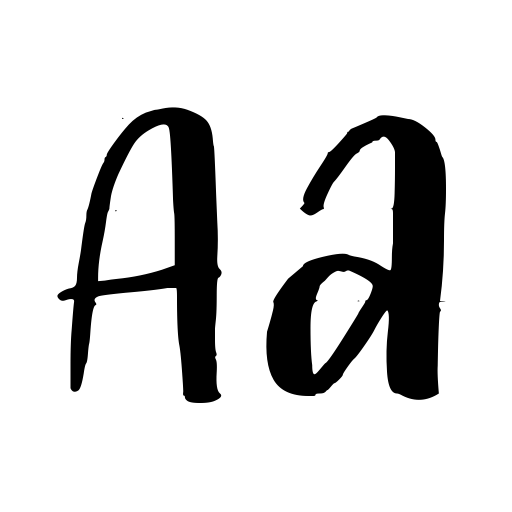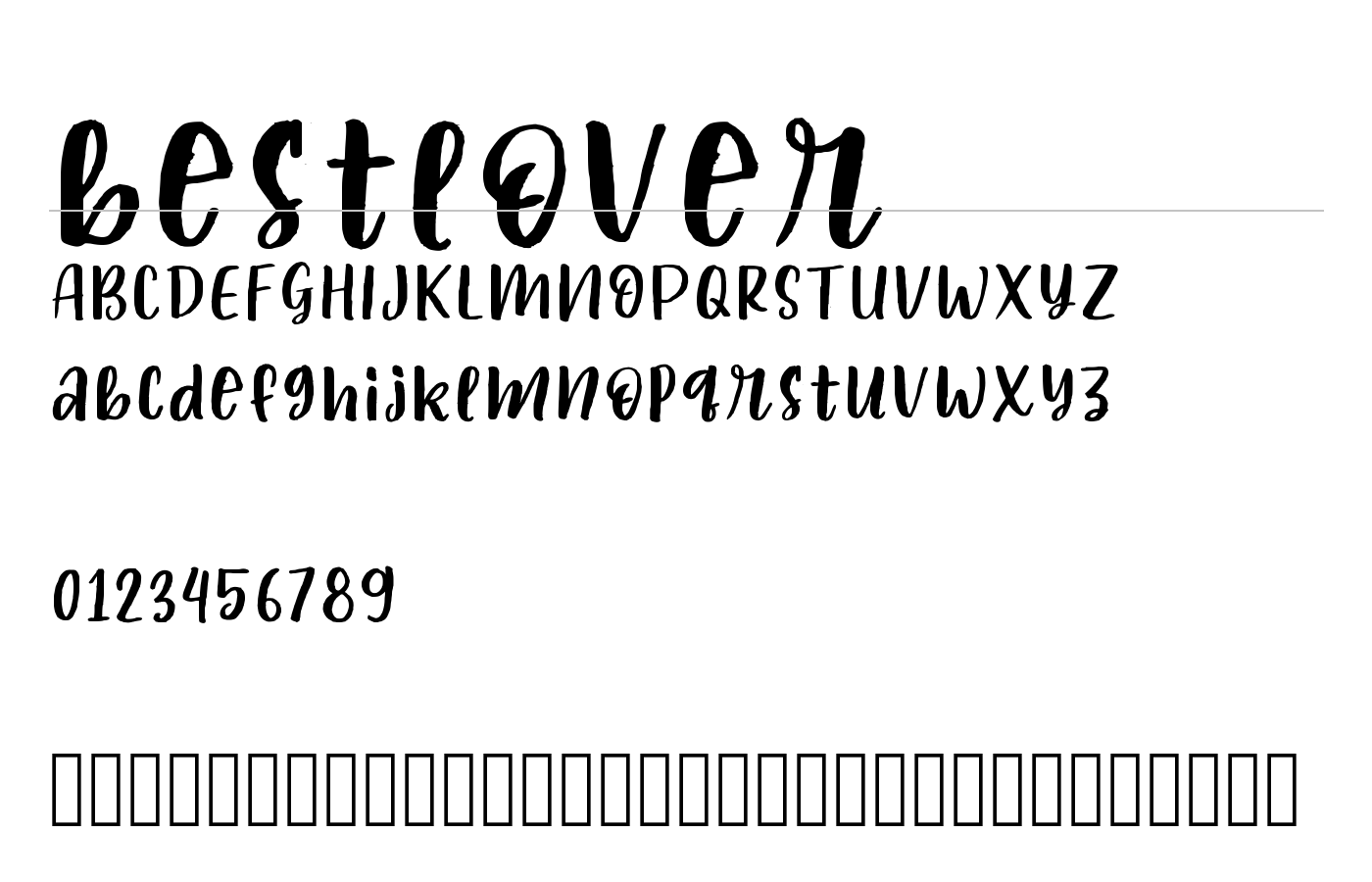
Bestlover Font is a playful and hand-drawn script-style typeface with a charming, casual feel. It features uneven strokes and quirky letterforms that bring a personal, artistic touch, making it perfect for creative projects, invitations, and branding that aim for warmth and approachability. Its unique character and lively rhythm work well for headlines and decorative uses where a friendly, handcrafted vibe is desired.
bestlover Font
About bestlover Font